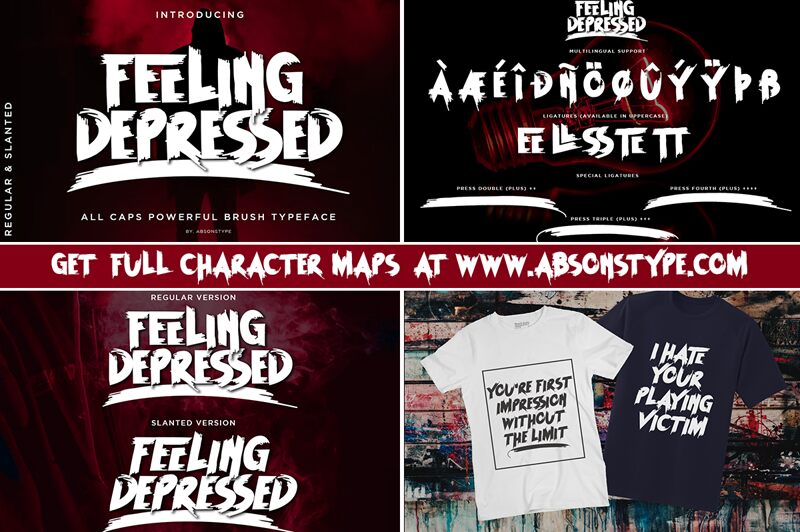
FEELING DEPRESSED
Feeling Depressed font by Absonstype Studio showcases an edgy, distressed brush style that immediately captures attention. This dramatic bold font exudes a grunge aura with its impactful and emotive design, ready to inject depth and intrigue into your visual projects. Its artistic rough look delivers an unpolished beauty that is both haunting and captivating for the viewers.
Feel free to use it in art designs, quotes, magazine covers, t-shirt graphics, posters, event branding/visual identity design projects ending with social media posts. The commercial quality font can also be used in food packaging projects and signages at bars or cafes.